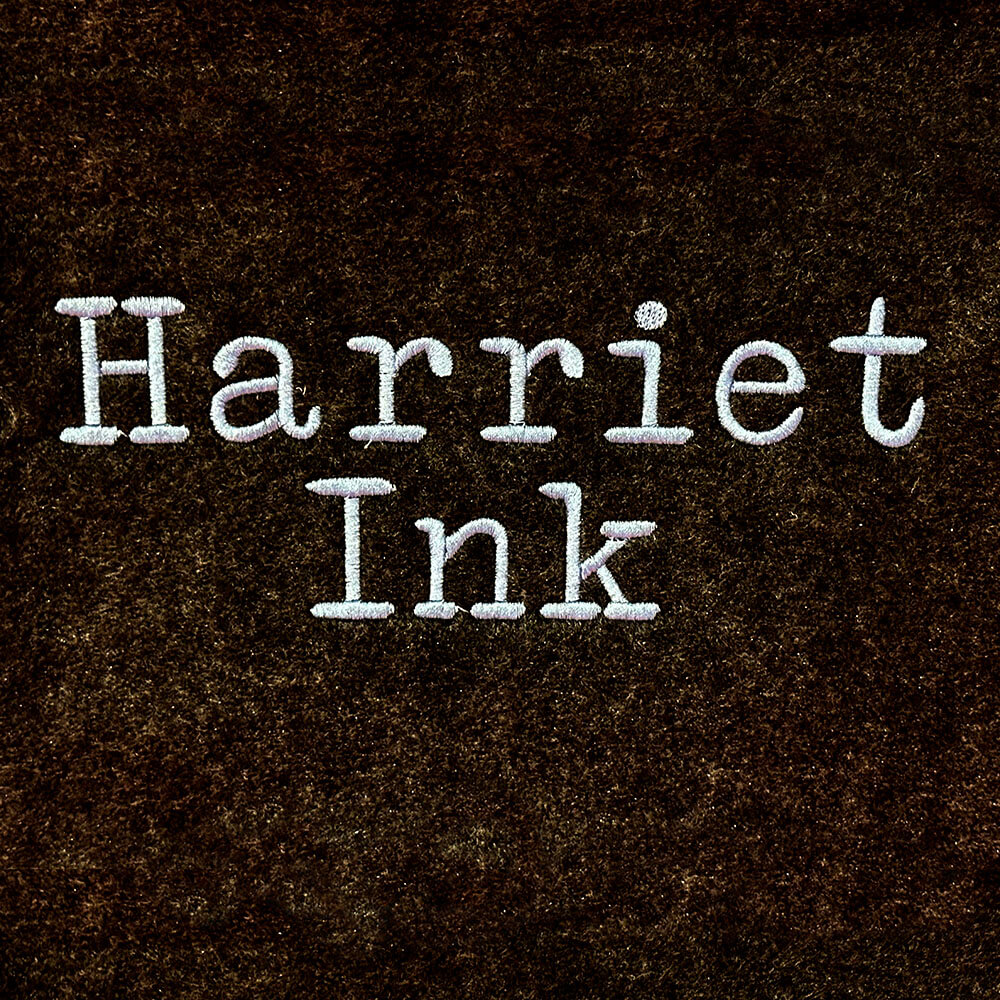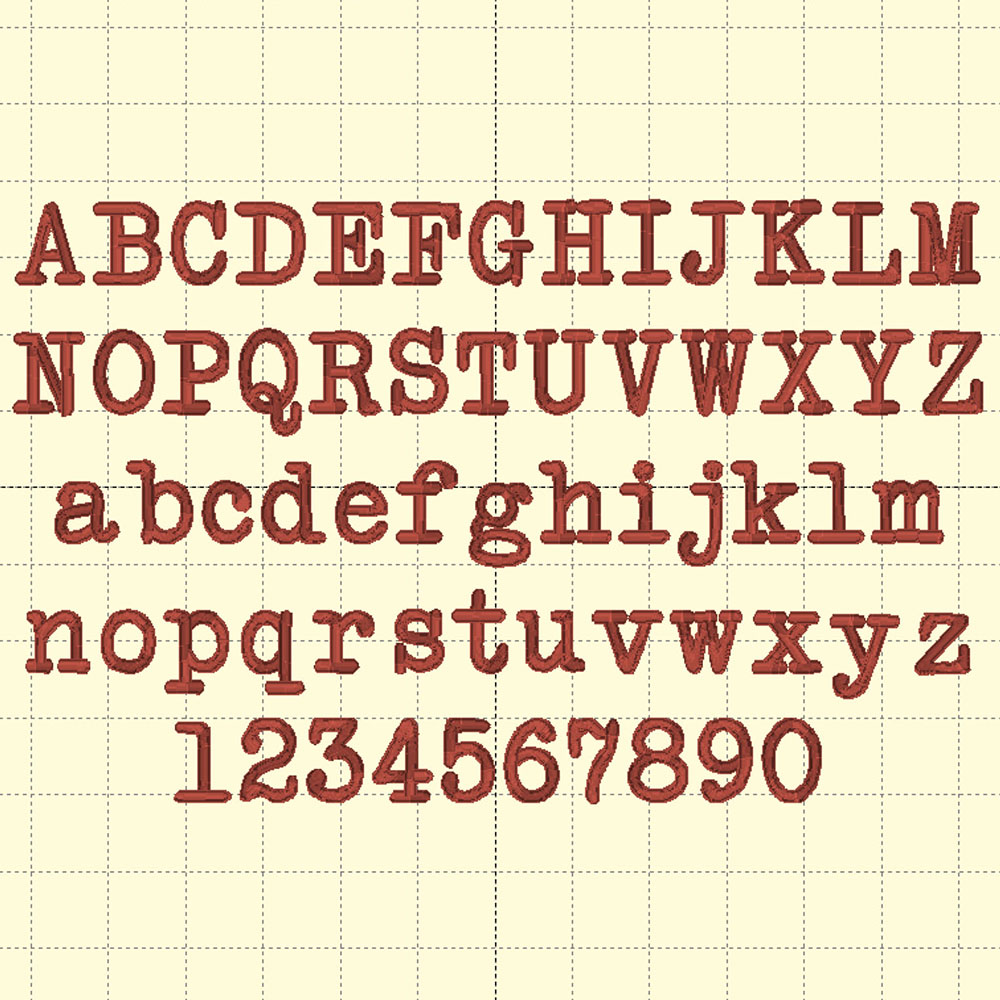
Harriet Ink Embroidery Font
Harriet Ink is a playful embroidery font that looks like it jumped straight off the keys of a vintage typewriter and into your stitching.
Harriet Ink Embroidery Font